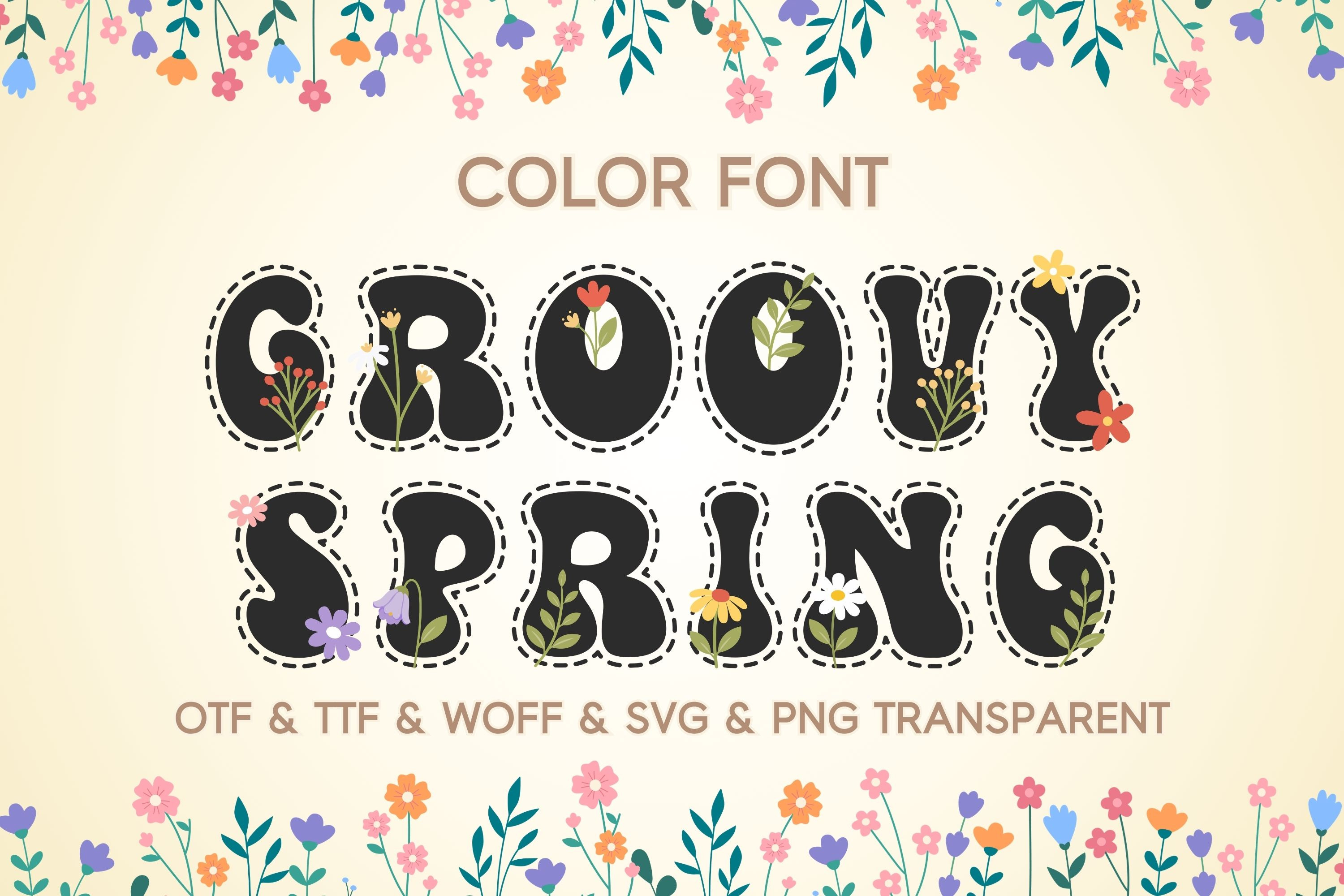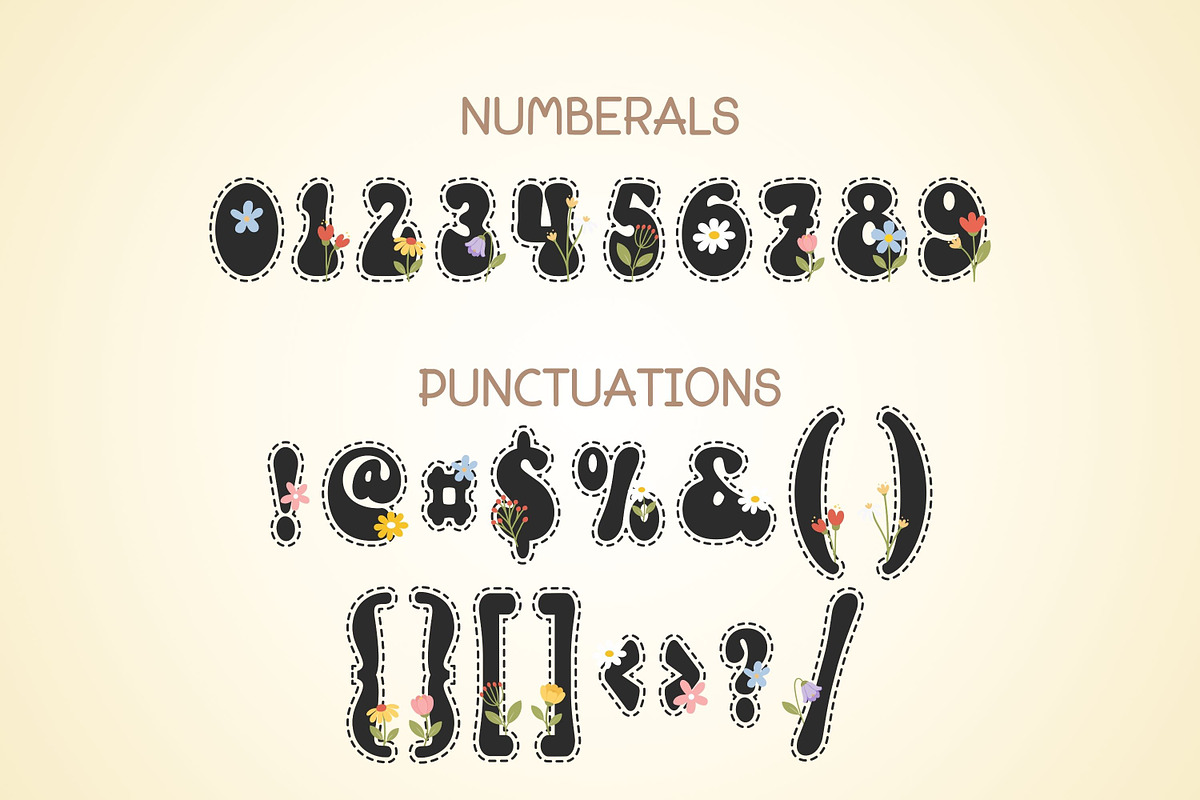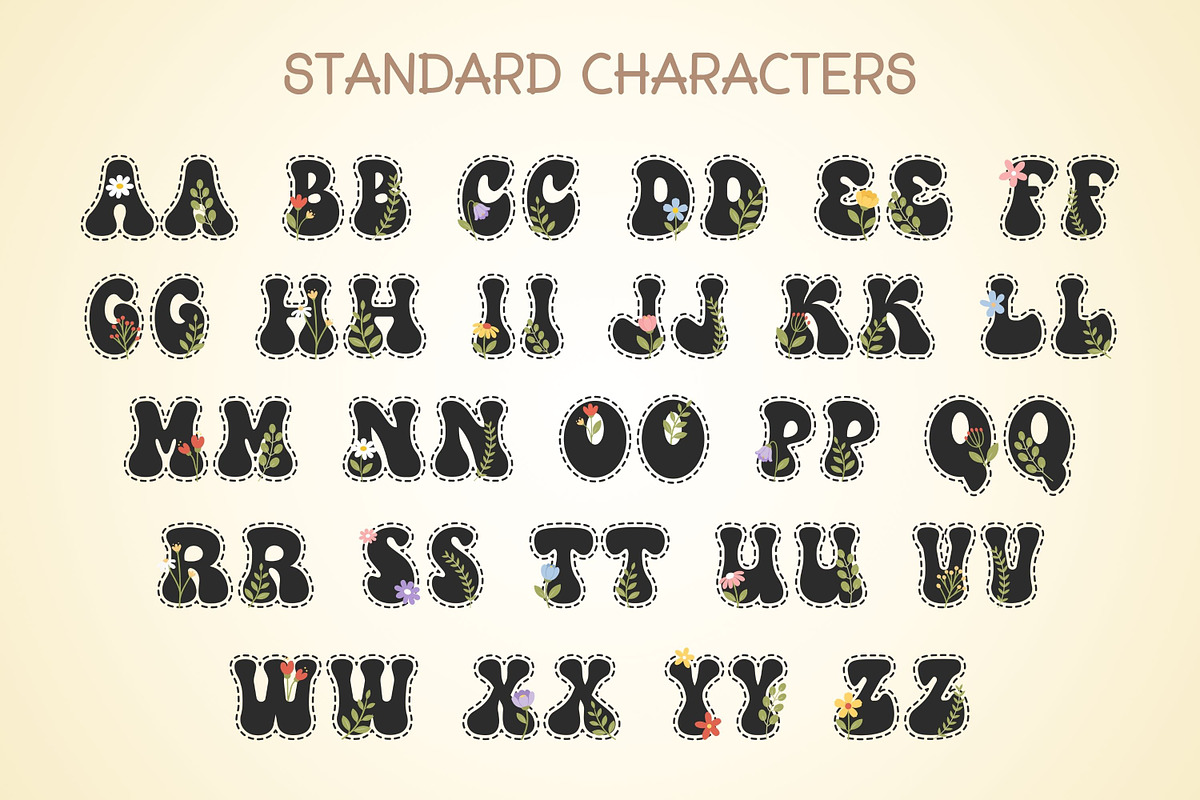
Groovy Spring - Color Font
Bring cheerful spring vibes to your next creative project with this Groovy Spring Color Font! This playful typeface features bold bubble letters decorated with cute hand-drawn flowers, leaves, and tiny botanical accents. Each character has a fun retro groovy style with a stitched outline effect, making it perfect for adding a sweet and whimsical touch to your designs.
This font includes uppercase letters, numbers, and punctuation, all carefully illustrated in a soft spring color palette with pastel pink, peach, lavender, blue, and green tones. The floral details make every letter unique and eye-catching while still being easy to read.
Spring and Easter crafts
Stickers and sublimation designs
T-shirts, mugs, tote bags, and apparel
Invitations and greeting cards
Nursery decor and kids projects
Scrapbooking and junk journals
Cricut and Silhouette projects
Social media graphics and printable designs
This groovy floral font is ideal for anyone who loves cute retro lettering, spring flowers, and playful handmade designs.
Perfect for greeting cards, children’s crafts, party invitations, stickers, and holiday merchandise, this color typeface comes in OTF, TTF, WOFF, SVG, and PNG formats for versatile use. Its bright palette and adorable design bring a joyful energy to every creation. Each glyph is richly detailed and rendered in color, making it ideal for projects where character and personality matter.